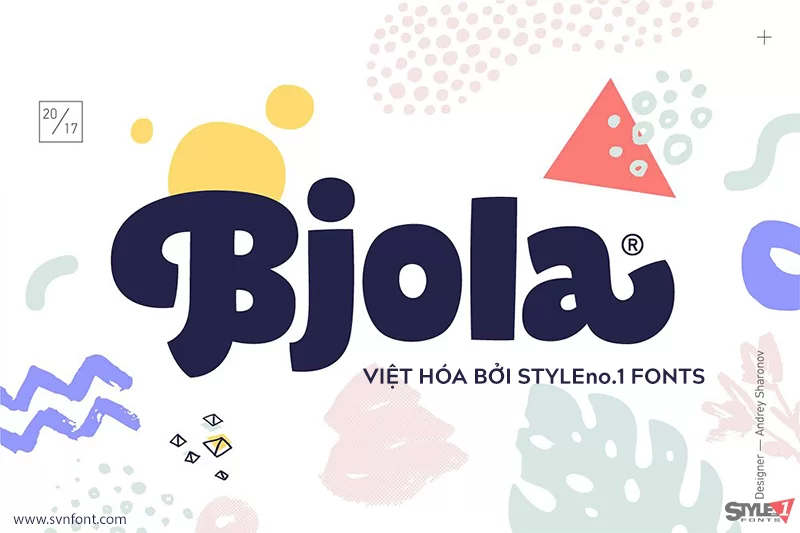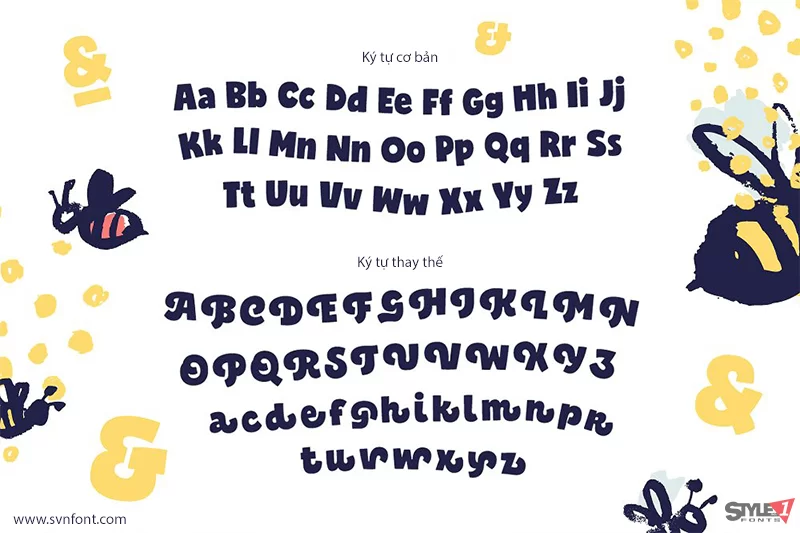
[Việt hóa] SVN-Bjola - Font chữ ngộ nghĩnh
Bjola is a bold friendly font which was created to bring a playful and little bit infantile feeling in any design. Сhubby clean letters looks simple and modern. It's perfectly for children books, funny greeting cards, meal package design, logotypes and much other, where used cartoon or simple abstract graphic. But obviously, its usage can be more widely. I did some design examples, so you can see how it works.
Nhà thiết kế: Andrey Sharonov
Nhà phát hành: Andrey Sharonov
Việt hóa: STYLEno.1 Fonts